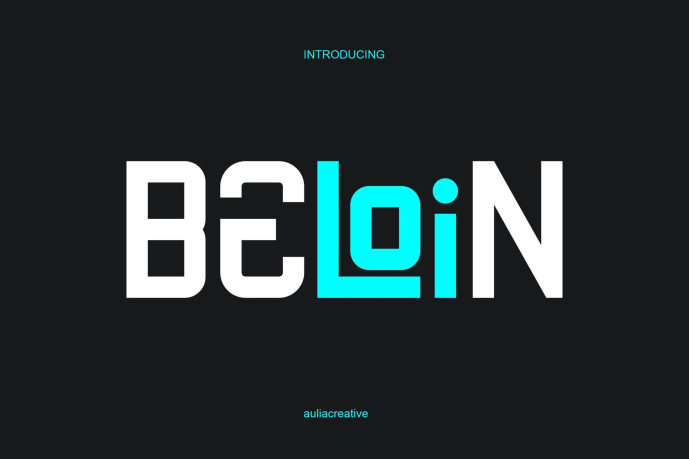
Beloin Font
Designer: Auliacreative
Beloin Font – Sans Logo Font is an awesome and authentic display typeface designed to create a strong and memorable visual impact. With its clean sans-serif structure and distinctive character, it delivers a modern, professional, and versatile appearance. Perfect for logos, branding, headlines, packaging, and creative design projects, Beloin brings clarity, confidence, and a unique identity to any visual composition.